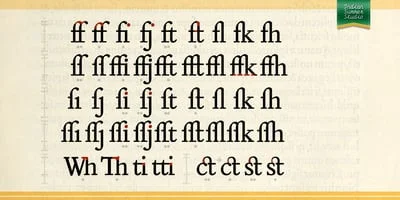
Aldo New Roman Font
Aldo New Roman Font is a distinguished serif typeface that exudes timeless elegance and professional gravitas. Its classic appeal, combined with clear readability, makes it an exceptional choice for a multitude of sophisticated design applications. Consider employing it for formal reports, academic publications, traditional book covers, high-end branding, elegant invitations, and refined editorial designs. This font's dignified presence is perfect for projects that require a sense of authority, tradition, and intellectual depth, ensuring your message is conveyed with utmost clarity and an air of established credibility. It effortlessly bridges the gap between classic typography and modern digital demands, making your content both accessible and visually compelling.
What makes Aldo New Roman Font truly exciting is its remarkable ability to blend historical reverence with contemporary versatility. While it harks back to the esteemed Roman typefaces, it has been subtly refined to perform excellently in today's digital landscapes. This allows it to maintain a sense of heritage and trustworthiness without appearing outdated. The balanced proportions, clear serifs, and excellent legibility across various sizes make it a workhorse for both display and body text. It’s a font that quietly commands respect, providing a stable and reliable foundation for any text-heavy design. Aldo New Roman Font offers a sophisticated simplicity that enriches your content, making it feel both learned and approachable.
The Aldo New Roman Font family typically offers a comprehensive range of weights and styles to cater to diverse design needs. You'll often find it includes regular, italic, bold, and bold italic variations, providing ample flexibility for emphasizing different elements within your text. Some extended versions might also offer additional weights like light or semi-bold, or even small caps and old-style figures, further enhancing its typographic capabilities. This extensive family ensures that Aldo New Roman Font can adapt seamlessly to any design challenge, from concise headlines to lengthy paragraphs, all while maintaining a consistent and harmonious visual language. Its robust character set usually covers a broad range of Latin characters, numbers, and extensive punctuation, making it suitable for international use and complex typographic systems.